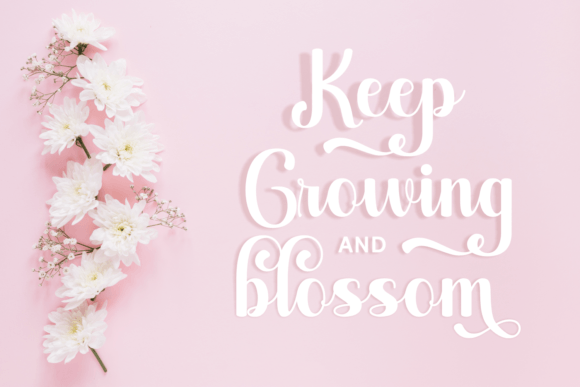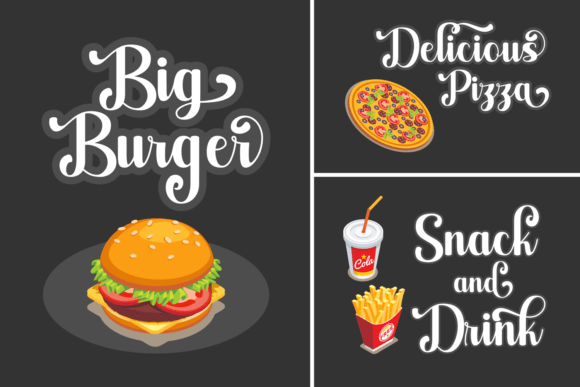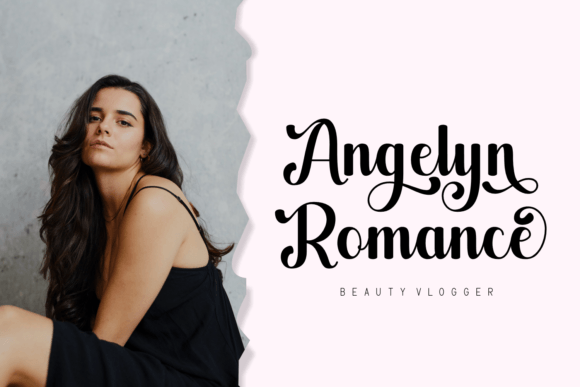
Alicia Charlotte Font: Elevate Your Designs with Elegance and Sophistication
In the world of typography, few fonts capture the essence of romance and elegance as beautifully as the Alicia Charlotte font. This stunning script font is a masterpiece of design, boasting romantic swashes and a flowing rhythm that make it an indispensable asset for any designer’s font library. Whether you’re crafting wedding invitations, branding materials, or digital content, Alicia Charlotte offers the versatility and sophistication needed to elevate your projects to new heights.
The Beauty of Alicia Charlotte
Alicia Charlotte is more than just a font; it’s an experience. Its elegant script and intricate swashes evoke a sense of luxury and refinement, making it perfect for designs that demand a touch of class. The font’s flowing rhythm ensures that text flows smoothly, creating a visually appealing reading experience that captivates audiences. Whether you’re designing for print or digital platforms, Alicia Charlotte’s beauty shines through, adding a layer of sophistication to your work.
One of the standout features of the Alicia Charlotte font is its incredible versatility. This font is not just limited to a specific type of project; it can be used across a wide range of design applications. From wedding planners and stationery to branding and advertising, Alicia Charlotte adapts seamlessly, providing a consistent and elegant look that enhances any design. Its flexibility makes it a valuable addition to your font collection, ensuring that you’re always equipped to create stunning visuals.
Alicia Charlotte font takes convenience to the next level with its PUA (Private Use Area) encoding. This means that all the glyphs and swashes are easily accessible, allowing you to incorporate them into your designs without hassle. The PUA encoding ensures that you can make the most of the font’s features, experimenting with different combinations to achieve the perfect look for your project. This level of accessibility makes it easier for designers to push the boundaries of creativity, resulting in truly unique and captivating designs.
For designers and crafters, Alicia Charlotte font is a dream come true. It offers the perfect blend of style, elegance, and functionality, making it an essential tool for anyone looking to create visually stunning content. Whether you’re a professional designer working on a client’s project or a crafter creating handmade goods, this font provides the inspiration and flexibility needed to bring your ideas to life.
Tips for Using Alicia Charlotte in Your Designs
To make the most of Alicia Charlotte in your designs, consider the following tips:
- Mix and Match: Don’t be afraid to experiment with different glyphs and swashes. Alicia Charlotte’s PUA encoding makes it easy to access and combine these elements to create a unique look.
- Pair with Simplicity: While Alicia Charlotte is elegant on its own, it can also be paired with simpler fonts to create a striking contrast. This combination can add depth and interest to your designs.
- Consider the Context: Think about the purpose of your design and the audience you’re targeting. Alicia Charlotte’s romantic and elegant feel makes it perfect for projects like wedding invitations, luxury branding, and high-end advertising.
Alicia Charlotte font is a beautiful, elegant script font that brings a touch of romance and sophistication to any design project. Its versatility, combined with PUA encoding for easy access to glyphs and swashes, makes it an invaluable asset for designers and crafters. Whether you’re creating wedding invitations, branding materials, or digital content, Alicia Charlotte offers the elegance and flexibility needed to elevate your designs. Add this stunning font to your library today and discover the difference it can make in your work.
With Alicia Charlotte, the possibilities are endless. Its elegant script, flowing rhythm, and versatile nature make it the perfect choice for anyone looking to add a touch of class and sophistication to their designs. So why wait? Dive into the world of Alicia Charlotte and let your creativity soar to new heights.